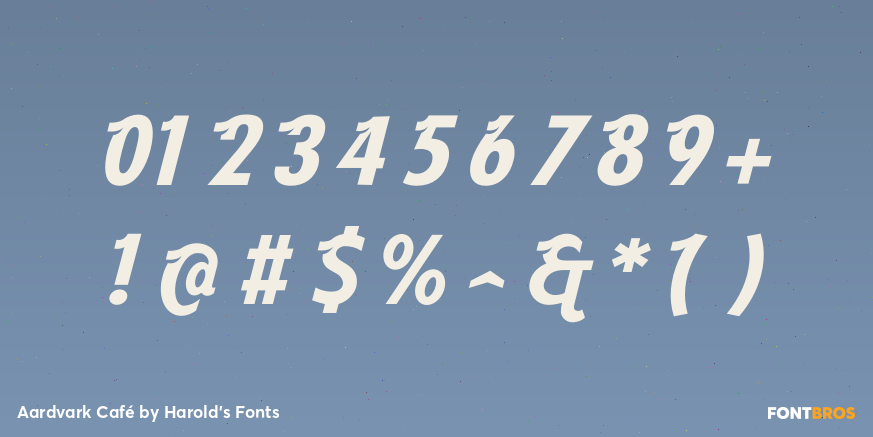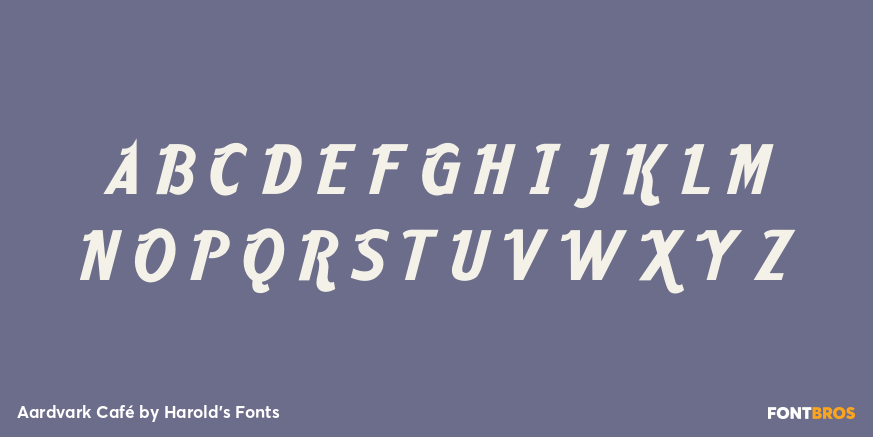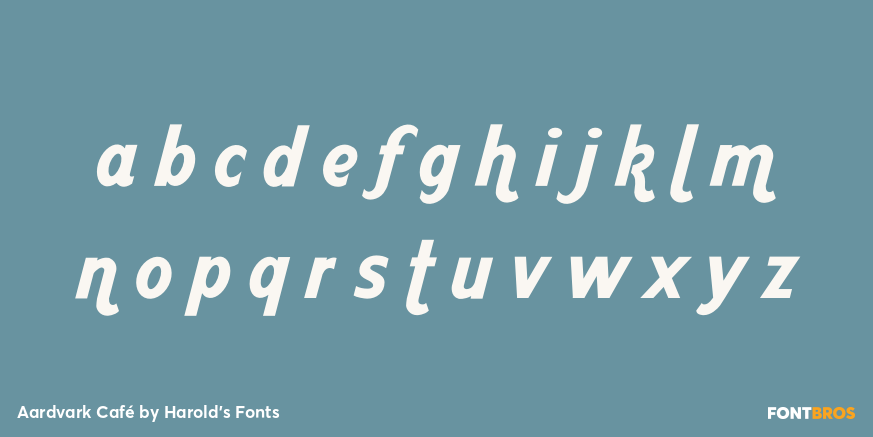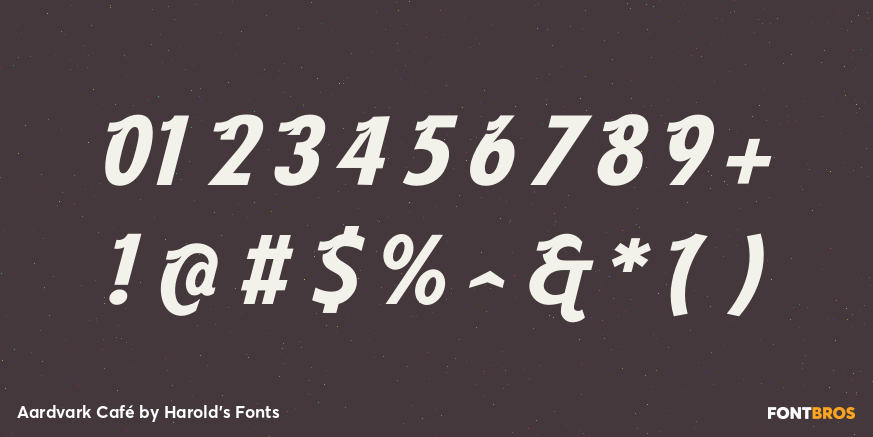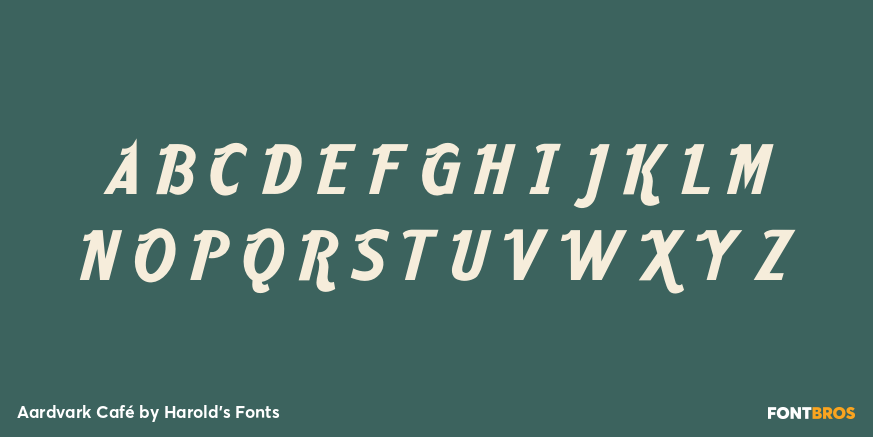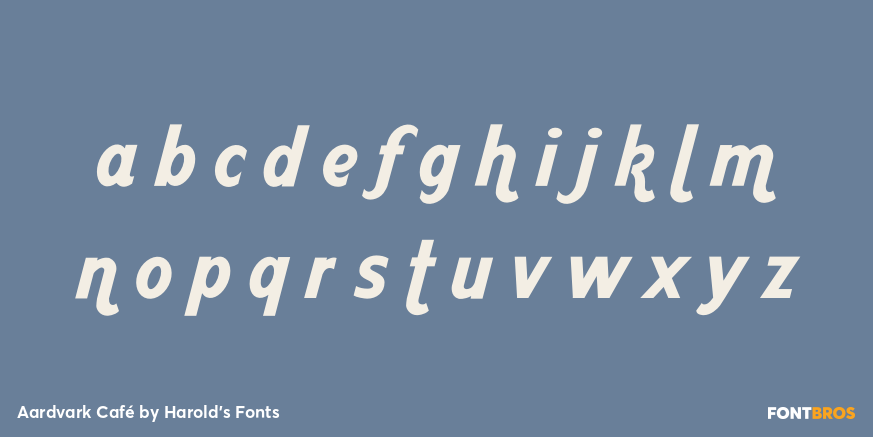
Aardvark Café
Font Family by Harold's Fonts
AARDVARK CAFÉ was inspired by the famous Hard Rock Café logo. It’s a worldwide pop classic and seems to have been originally hand lettered. In imagining the rest of the alphabet, I strove to work the little upstroke “wings” into all the caps and the swashy descenders on the h, m, and n to match the k.
Version 1.5 makes use of the stylistic alternates feature of Opentype; unswashed characters are included as alternates now and the character set has been extended.